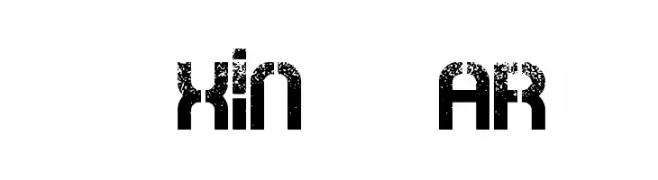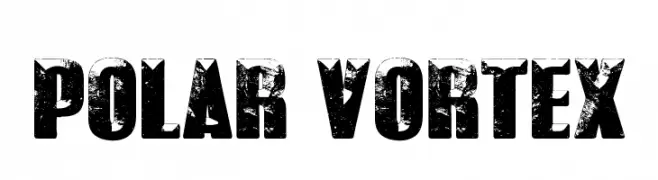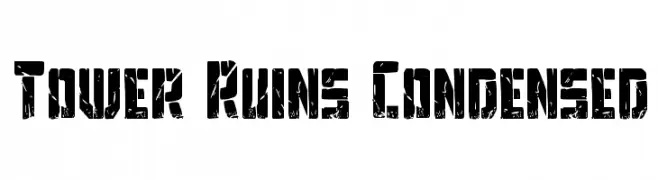
A vintage, typewriter-inspired font with a bold, distressed look.
A bold, jagged font with a rebellious, distressed aesthetic.
A rugged, distressed font with a bold, textured appearance.
A distressed, gothic-style font with a bold, grunge appearance.
A vintage typewriter-style font with a slightly distressed look.
A bold, hand-drawn font with an expressive, distressed style.
A bold, distressed font with irregular edges and a hand-crafted appearance.
A bold, rugged font with uneven, jagged edges for a distressed look.
A rugged, distressed font with jagged edges and a bold presence.
A decorative, distressed font with an eroded, organic appearance.
A distressed, artistic font with a unique, weathered appearance.
A bold, distressed font with a vintage, grunge aesthetic.
A bold, distressed font with a dynamic, molten appearance.
A distressed, vintage serif font with a textured, weathered appearance.
A bold, distressed sans-serif font with a rugged, torn appearance.